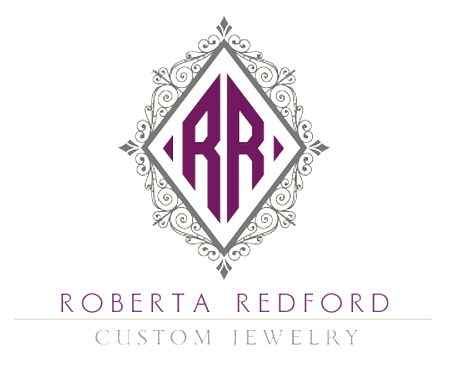
John Davis
Type designer from Southern California, who designs type at Reno, NV-based Letterhead Fonts, which in turn is run by Chuck Davis. Many of his designs are Victorian / Western.
At Letterhead Fonts, he designed these typefaces: 20 Six Letters (with Noel Weber), 20 Six Panels (with Noel Weber), LHF Bergling Panels (2012, after J.M. Bergling, ca. 1900), Boston Ballpark, LHF Classic Panels 2 (2011, with Kaitlin Sims), Cool Blue 2 (2014, based on Letterhead's Cool Blue from 2002), General Store, Hambone, Heritage, Kips Bay, Metro 39 (inline, art deco), Monogram Diamond (based on J.M. Bergling), Monogram Oval, LHF Pipeline (2012, inspired by Alf Becker), LHF Ridgecrest (2012), Ringer, LHF Encore (2014: Victorian calligraphic designs), Woodmere, LHF Brooklyn (2015), Bella Vista (2015).